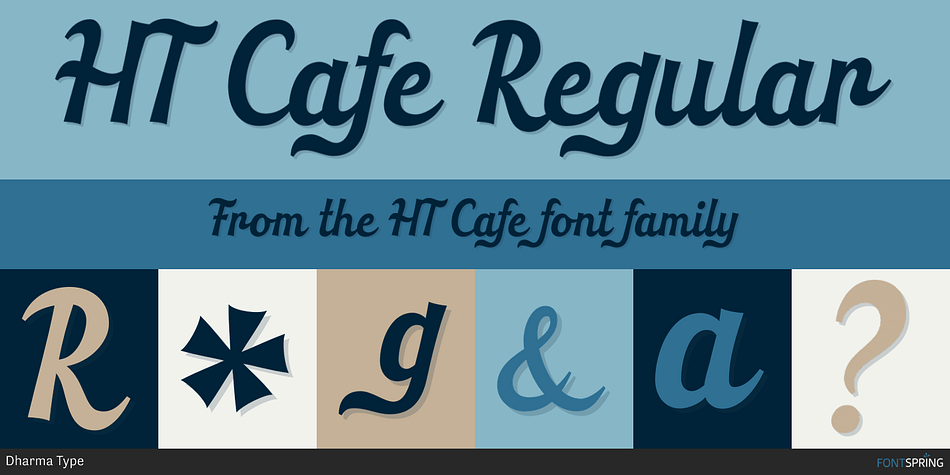
HT Cafe Regular
HT Cafe is a script font published by Dharma Type.
Retro script fonts inspired by shopfront lettering and hand-painted wall advertisements from 1950s Italy.
They capture the nostalgic charm of mid-century Italian streets, blending elegance with a handcrafted feel.
This connected and brush script is very impressive, but is also legible, so it is the best for package of sweets or breads, shop card, shop front and so on.